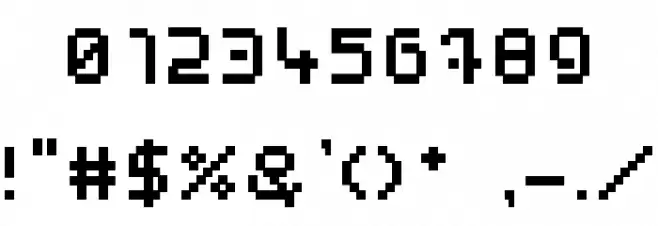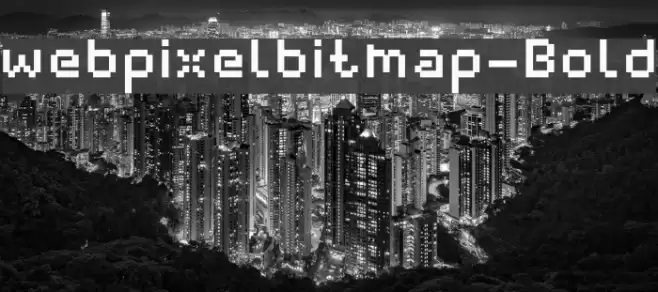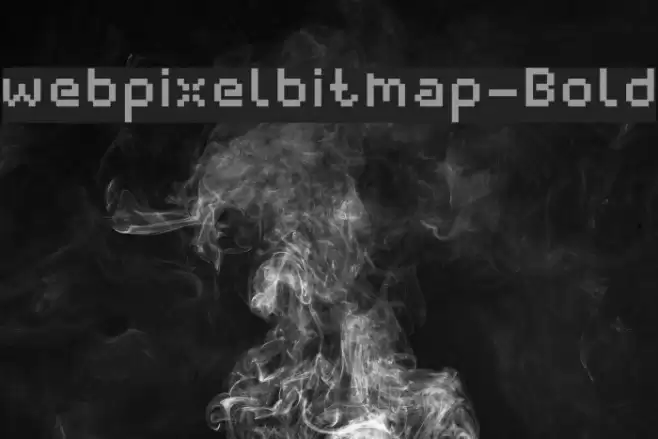
webpixelbitmap-Bold Font
webpixelbitmap-Bold Description
This font features a bold, pixelated style reminiscent of early digital displays and retro video games. Each character is composed of a grid of square pixels, giving it a blocky and geometric appearance. The uppercase and lowercase letters maintain a consistent height, creating a uniform look across the text. The numerals and special characters follow the same pixelated design, ensuring cohesion throughout. This font is highly legible at larger sizes, making it ideal for digital and retro-themed projects. Its distinct style evokes a sense of nostalgia, perfect for capturing the essence of classic arcade games.
A bold, pixelated font inspired by retro digital displays from Uncategorized fonts.
- Proposed Projects: Ideal for retro video game designs, digital art projects, and nostalgic branding.
- Overall Style: Retro, Digital
- Use Case: Headlines, Logos, Digital Art